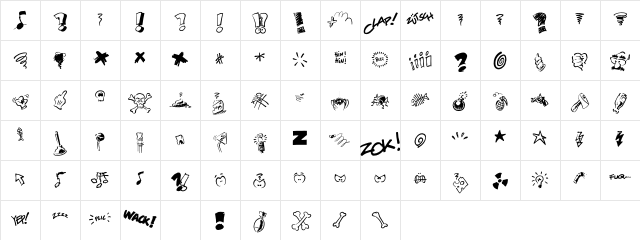
Complete DamnedDingbatsEF Regular glyph index. Displaying only characters natively supported by DamnedDingbatsEF Regular font.
DamnedDingbatsEF is a composed and adaptable typeface that performs quietly and consistently across a wide range of design contexts.